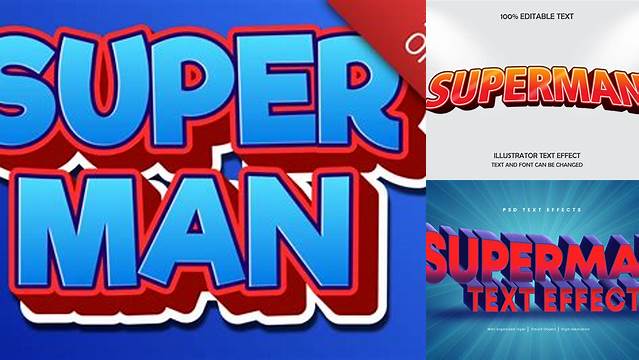
Free 3D Superman Font Generator: Create Amazing Text!
Hey guys! Ever wanted to make your text look like it flew straight out of a Superman comic? Well, you're in luck! We're diving deep into the world of 3D Superman font generators, and the best part? We're focusing on the free ones. Yep, you heard that right. No need to break the bank to get that iconic look. Whether you're designing a poster, spicing up your social media, or just having some fun, this guide will show you everything you need to know.
What’s the Buzz About 3D Superman Fonts?
So, what’s the big deal about these fonts anyway? 3D Superman fonts capture the essence of the Man of Steel's logo – bold, powerful, and instantly recognizable. They're perfect for grabbing attention and adding a touch of superhero flair to any project. The 3D effect gives your text depth and makes it pop, making it a fantastic choice for titles, headings, and even logos. Think of it as adding a little bit of Kryptonian strength to your words!
Why Use a 3D Superman Font Generator?
Why not just download a regular font? Well, a 3D font generator offers a ton of flexibility. You can often customize the depth, color, and even the lighting effects to truly make the font your own. Plus, many generators let you see a preview of your text in real-time, so you can tweak it until it’s perfect. It’s like having a mini design studio at your fingertips, and who doesn’t want that?
3D Superman Font Generator Free: Unleashing Your Inner Designer
Exploring Free 3D Font Generator Options
Finding the right free 3D font generator can feel like searching for the Fortress of Solitude, but don't worry, we've got you covered. There are several fantastic online tools that offer impressive results without costing you a penny. Let's explore some of these options and see what makes them tick. These generators often provide a range of customization options, allowing you to tailor the font to your exact needs. You can adjust the size, color, depth, and even add special effects to make your text truly stand out. The best part? Most of these tools are incredibly user-friendly, so you don't need to be a design guru to get amazing results. Whether you're creating a banner, a logo, or just having fun with typography, a free 3D font generator can be a game-changer.
Creating Superman Inspired Text Effects for Free
One of the coolest things about using a 3D Superman font is the ability to create text effects that truly capture the superhero vibe. Think about adding a metallic sheen, a subtle glow, or even a texture that mimics the iconic Superman emblem. The possibilities are endless! And guess what? You can achieve these effects for free using the right tools and techniques. Many online generators offer options to add gradients, shadows, and other effects that can transform your text from ordinary to extraordinary. Don't be afraid to experiment and try different combinations until you find the perfect look. After all, the goal is to create something that's not only eye-catching but also uniquely yours. Embrace your inner artist and let your creativity soar!
Free Online 3D Superman Font Maker Tools
Ready to dive into the world of free online 3D Superman font maker tools? There are some awesome options out there that let you create stunning text without any complicated software or hefty price tags. These tools are perfect for anyone who wants to add a touch of superhero flair to their projects without breaking the bank. Many of these online generators offer a wide range of customization options, allowing you to adjust the font size, color, depth, and even the lighting effects. Some even provide pre-designed templates that you can use as a starting point. The key is to explore different tools and find the one that best suits your needs and preferences. Don't be afraid to try out different features and experiment with various settings to achieve the perfect 3D Superman font for your project. Remember, the best way to learn is by doing, so get out there and start creating!
Free 3D Text Generator Superman Style
If you're looking for a free 3D text generator that can capture the Superman style perfectly, you're in the right place. These generators are specifically designed to emulate the bold and powerful look of the iconic Superman logo. They often include features that allow you to add a three-dimensional effect, making your text pop off the screen or page. Many of these tools also offer options to customize the color, font size, and depth of the text, giving you complete control over the final result. Whether you're designing a poster, a website header, or just having fun with typography, a free 3D text generator in Superman style can help you create eye-catching visuals that capture the essence of the Man of Steel. The key is to experiment with different settings and effects until you achieve the perfect balance of boldness and readability. So, go ahead and give it a try – unleash your inner superhero designer!
Download Free Superman Font 3D
Sometimes, you just want to download a free Superman font in 3D and use it offline. Luckily, there are websites that offer downloadable fonts that capture the iconic look. But before you hit that download button, make sure you're getting your fonts from a reputable source. You want to avoid any dodgy sites that might bundle malware with your font. Once you've found a safe source, downloading and installing the font is usually a breeze. Just follow the instructions provided by the website, and you'll be ready to use your new font in no time. Remember to check the license agreement for the font, as some fonts may have restrictions on commercial use. But for personal projects, these downloadable 3D Superman fonts are a fantastic way to add a touch of superhero flair to your designs. So, go ahead and find the perfect font to bring your creative vision to life!
Generate 3D Superman Logo Font Online
Want to generate a 3D Superman logo font online? You're in luck! There are some fantastic online tools that make it super easy to create text that looks like it came straight from the Daily Planet. These generators often have pre-set styles that mimic the iconic Superman logo, so you don't have to be a design expert to get amazing results. Simply type in your text, choose your desired settings, and let the generator do its magic. Many of these tools also allow you to customize the colors, depth, and other effects, giving you complete control over the final look. Whether you're designing a logo, a banner, or just want to add a touch of superhero flair to your website, an online 3D Superman logo font generator is a quick and easy solution. So, why wait? Start creating your own heroic text today!
Superman 3D Font Generator for Designers
Calling all designers! A Superman 3D font generator can be your secret weapon for creating eye-catching visuals. Whether you're working on a comic book cover, a movie poster, or a promotional campaign, the right font can make all the difference. These generators offer a level of customization that allows you to tailor the font to your specific needs. You can adjust the depth, angle, and lighting to create a truly unique look. Plus, many generators offer a preview feature, so you can see how your text will look before you finalize your design. With a 3D Superman font generator in your toolkit, you can take your designs to the next level and make a lasting impression on your audience. So, embrace your inner superhero designer and start experimenting with different styles and effects. The possibilities are endless!
So there you have it, folks! Everything you need to know about creating awesome 3D Superman fonts for free. Go forth and create something amazing!